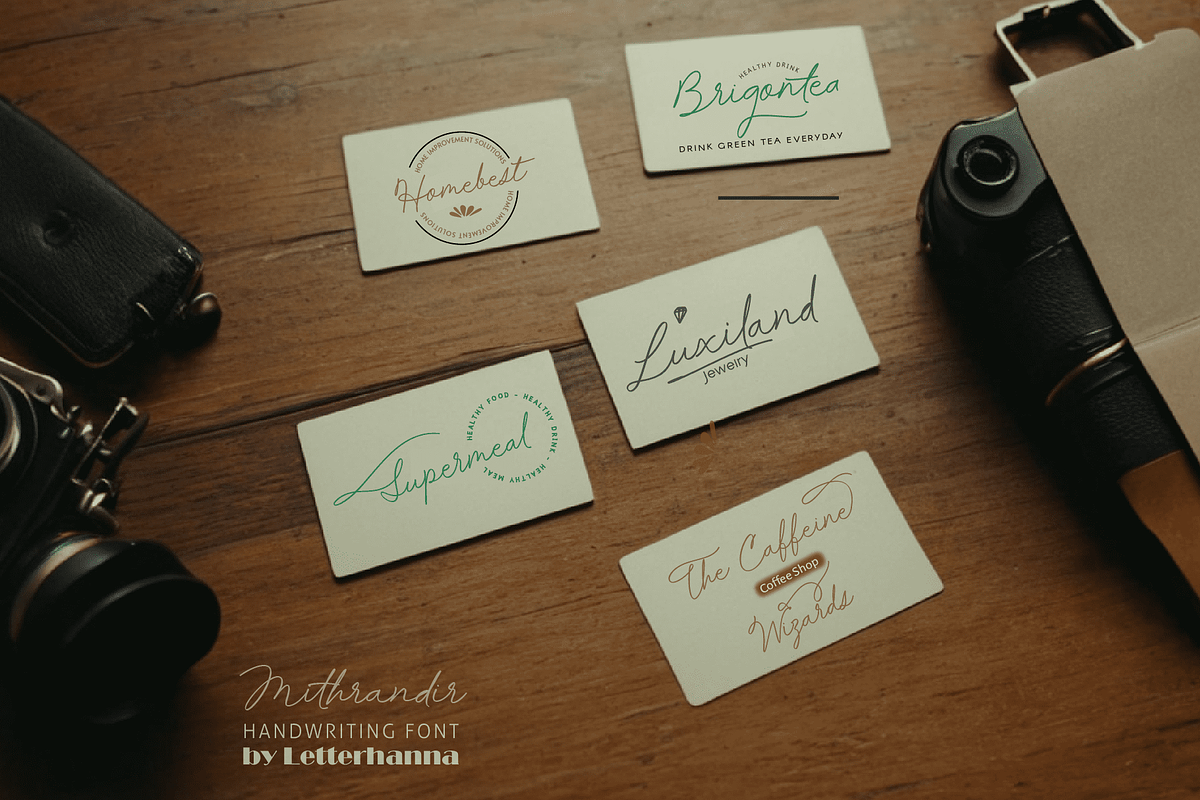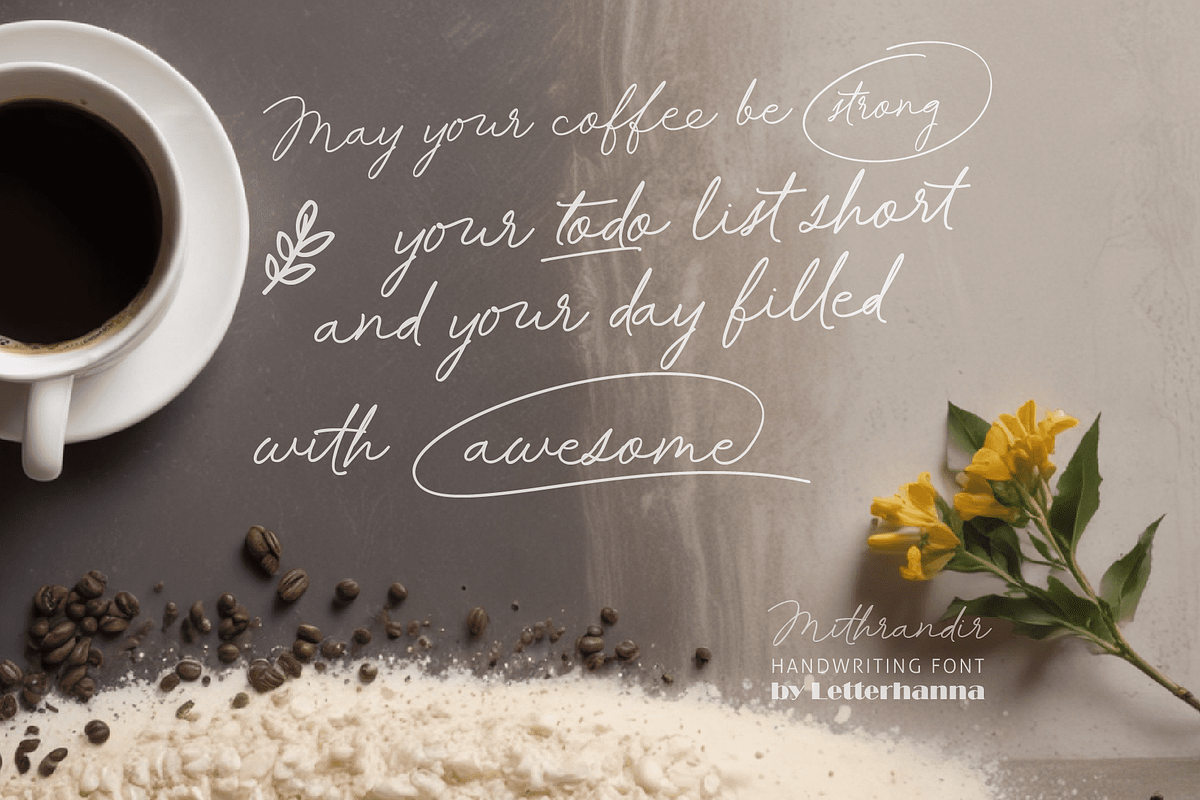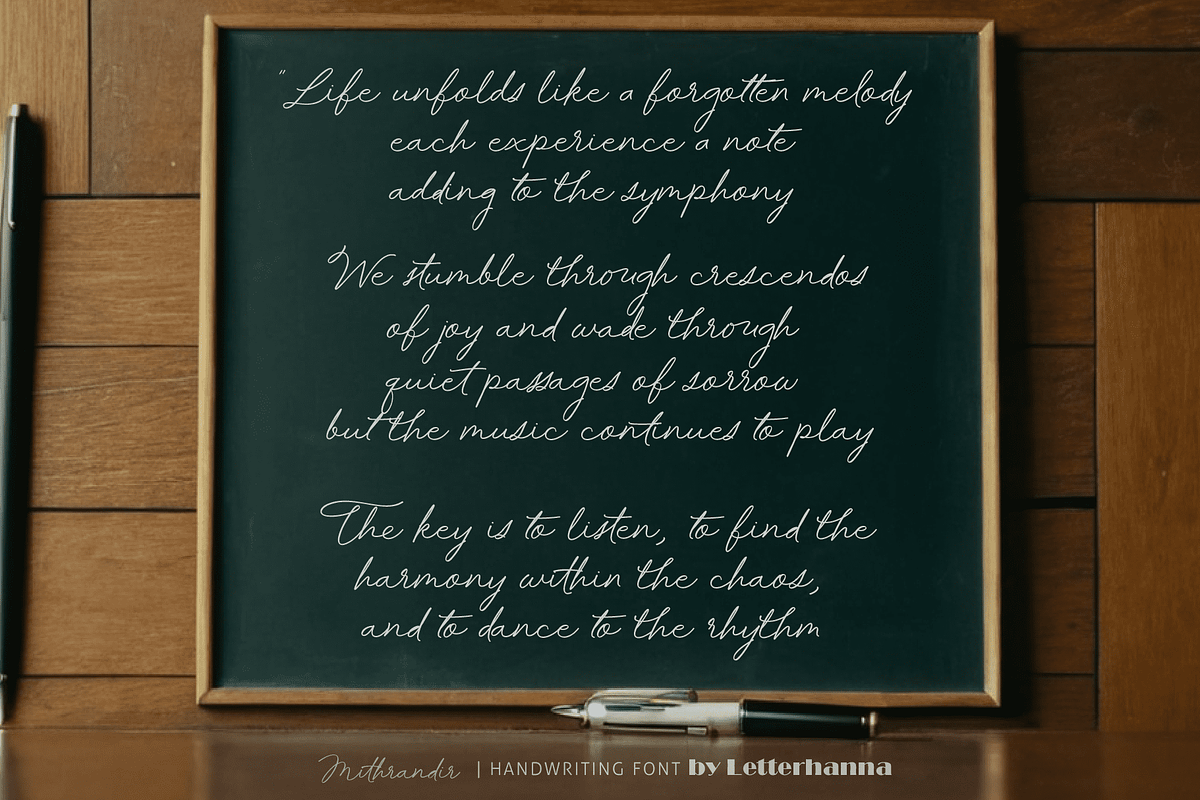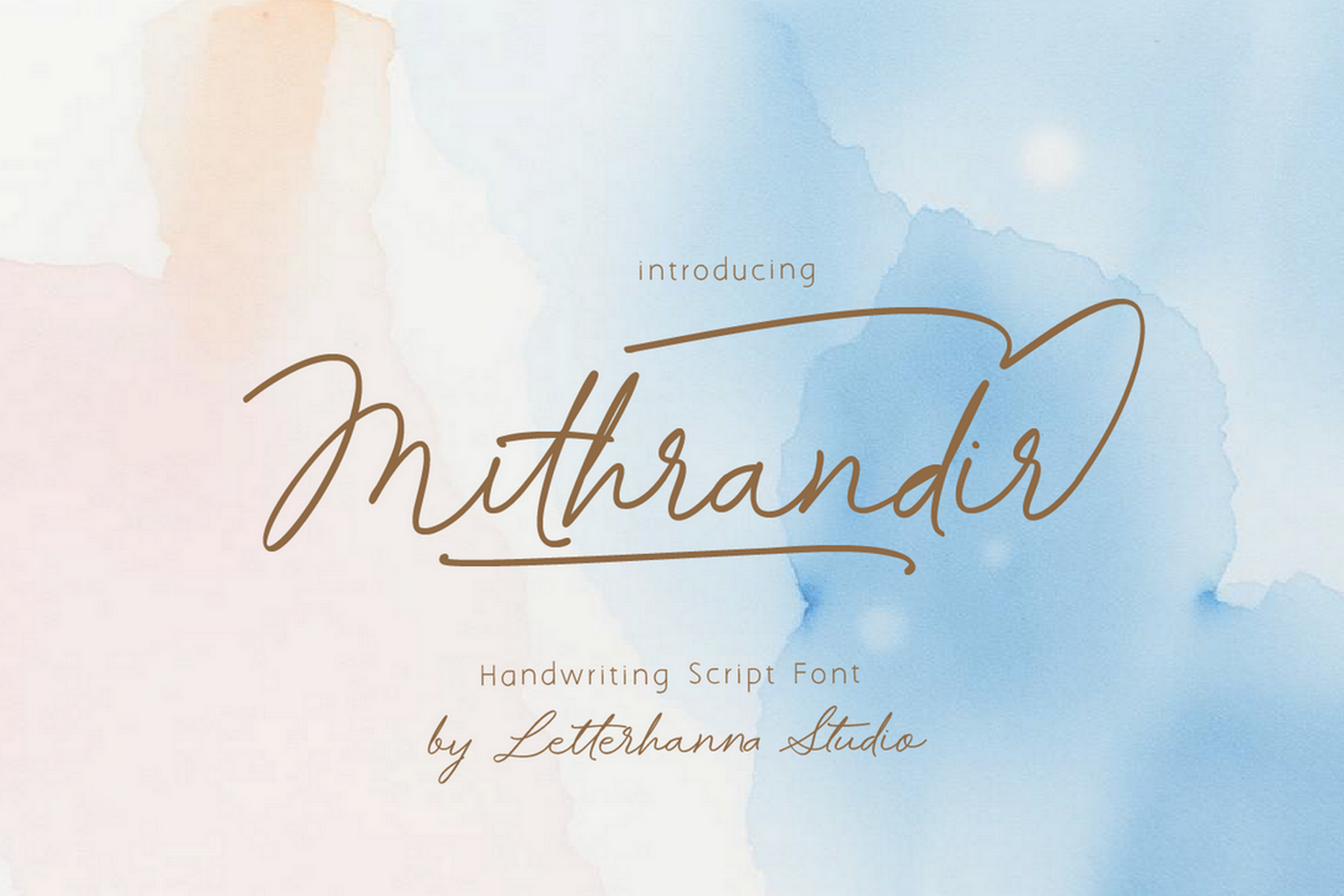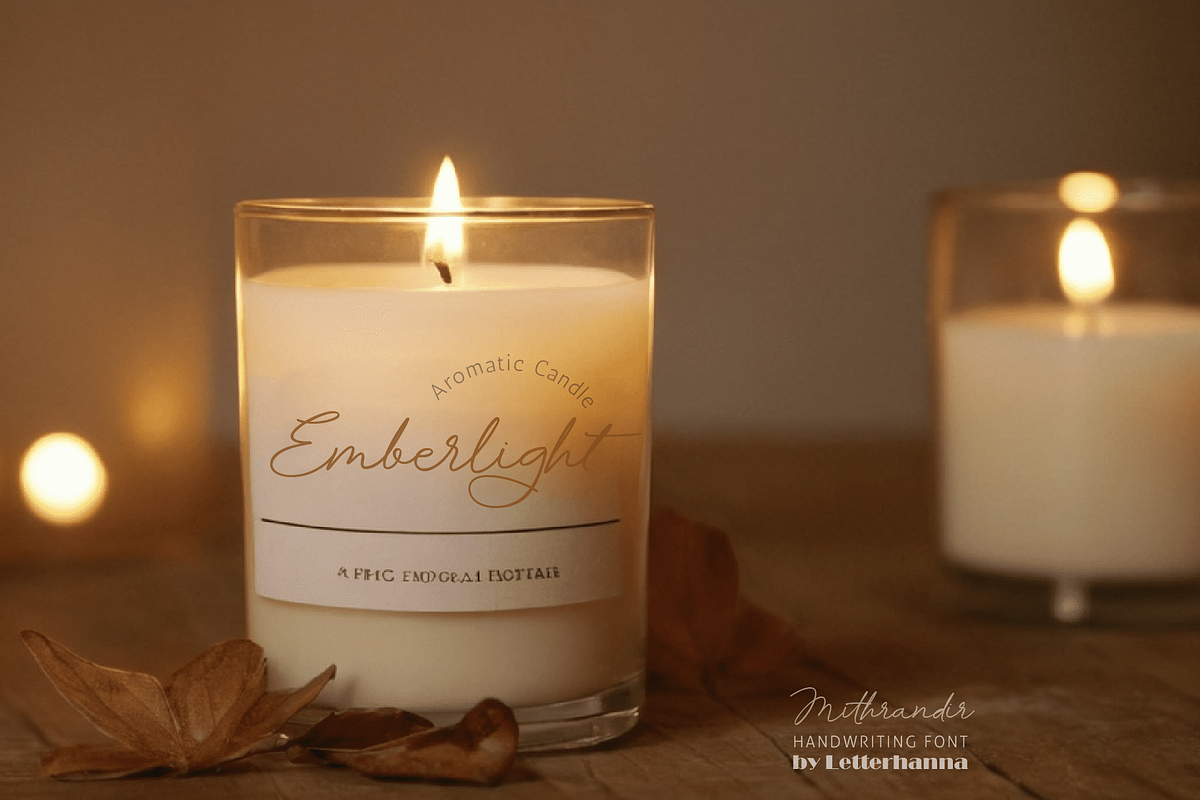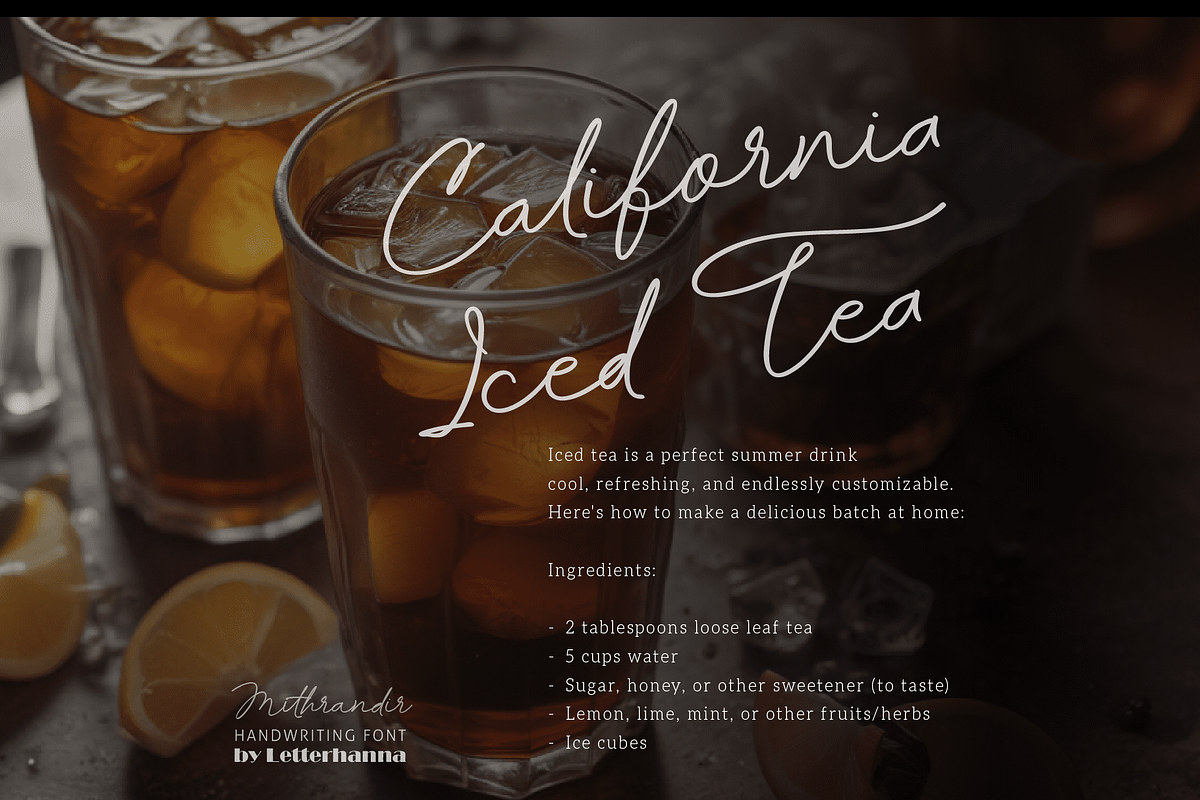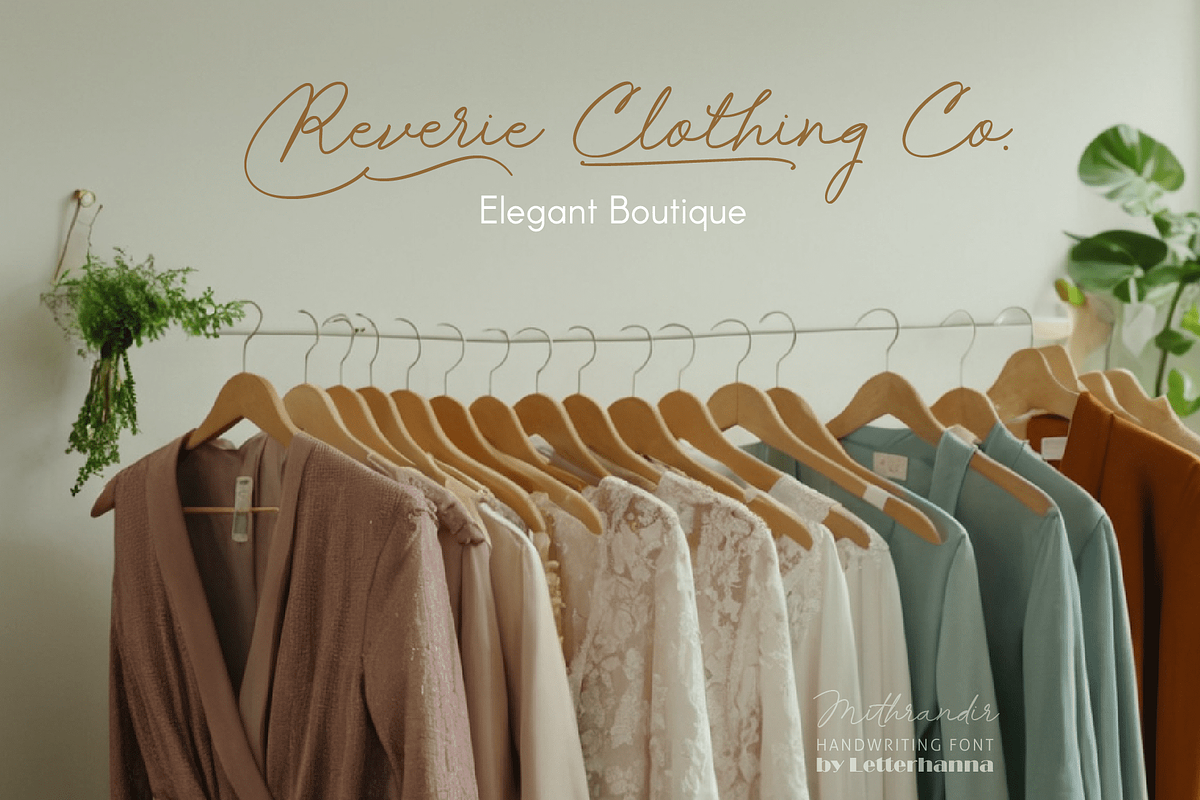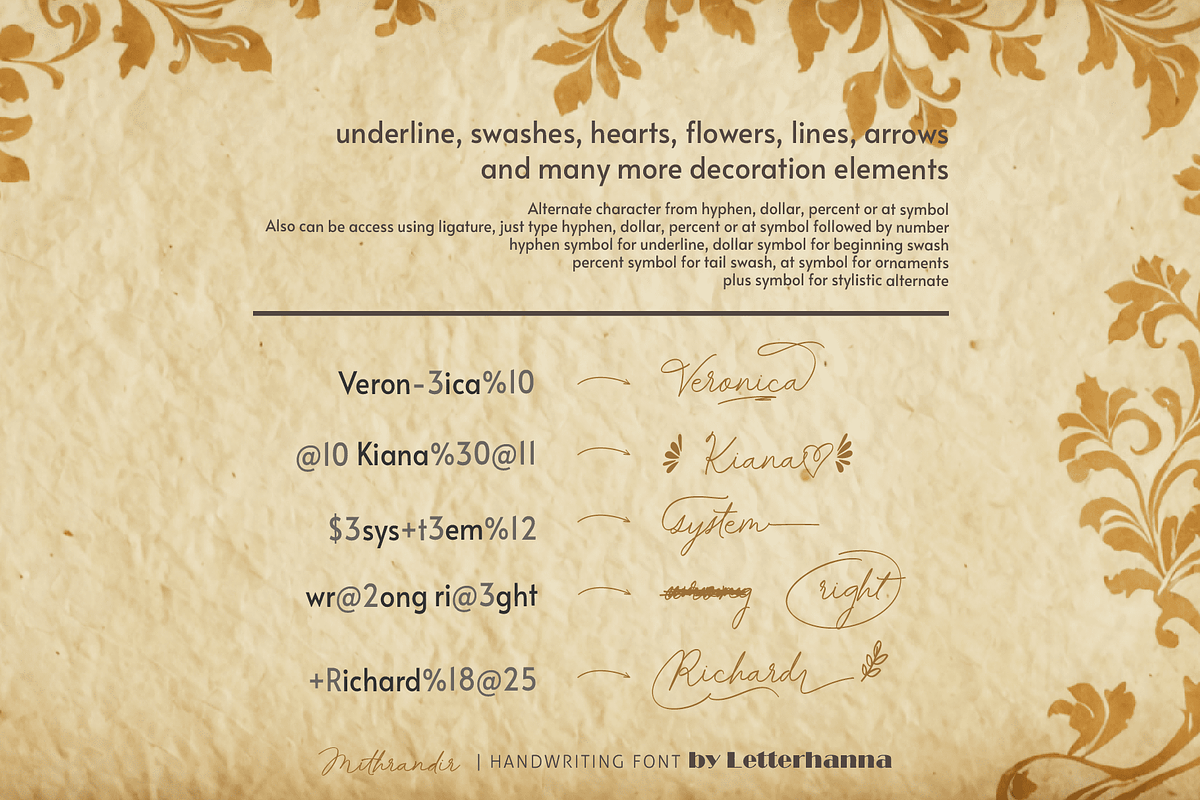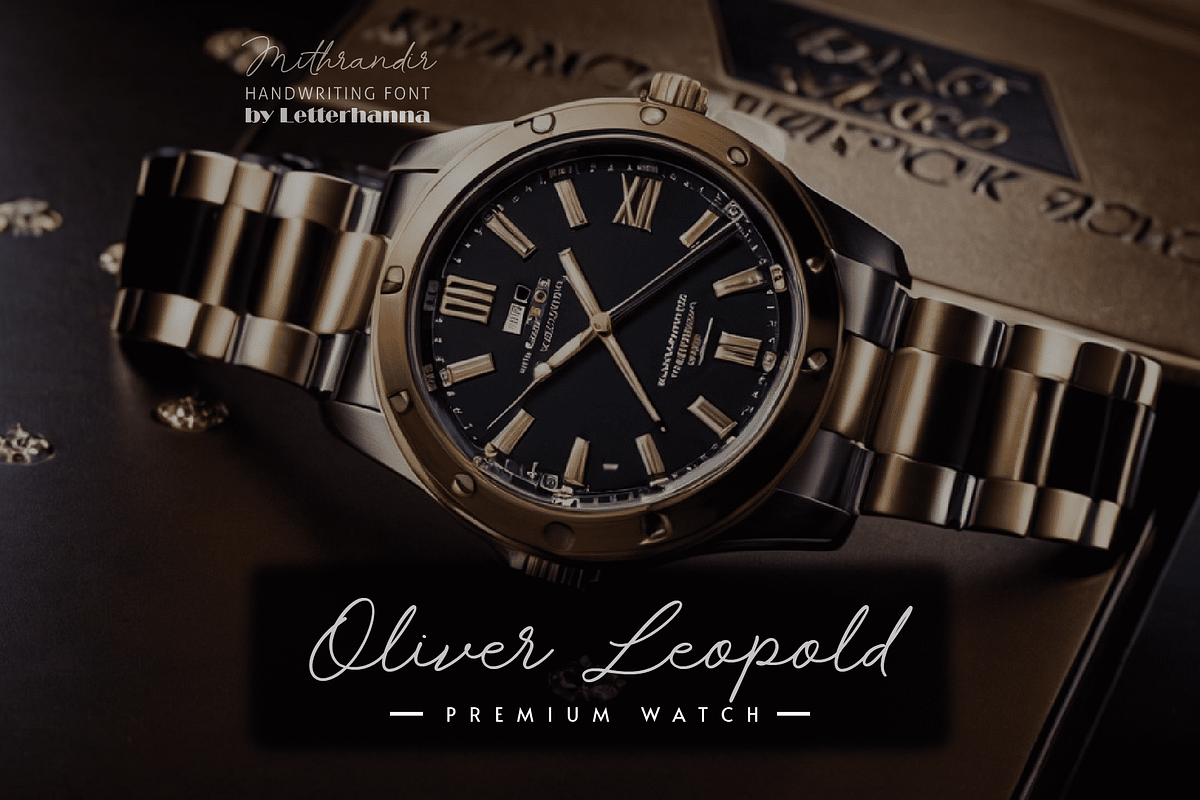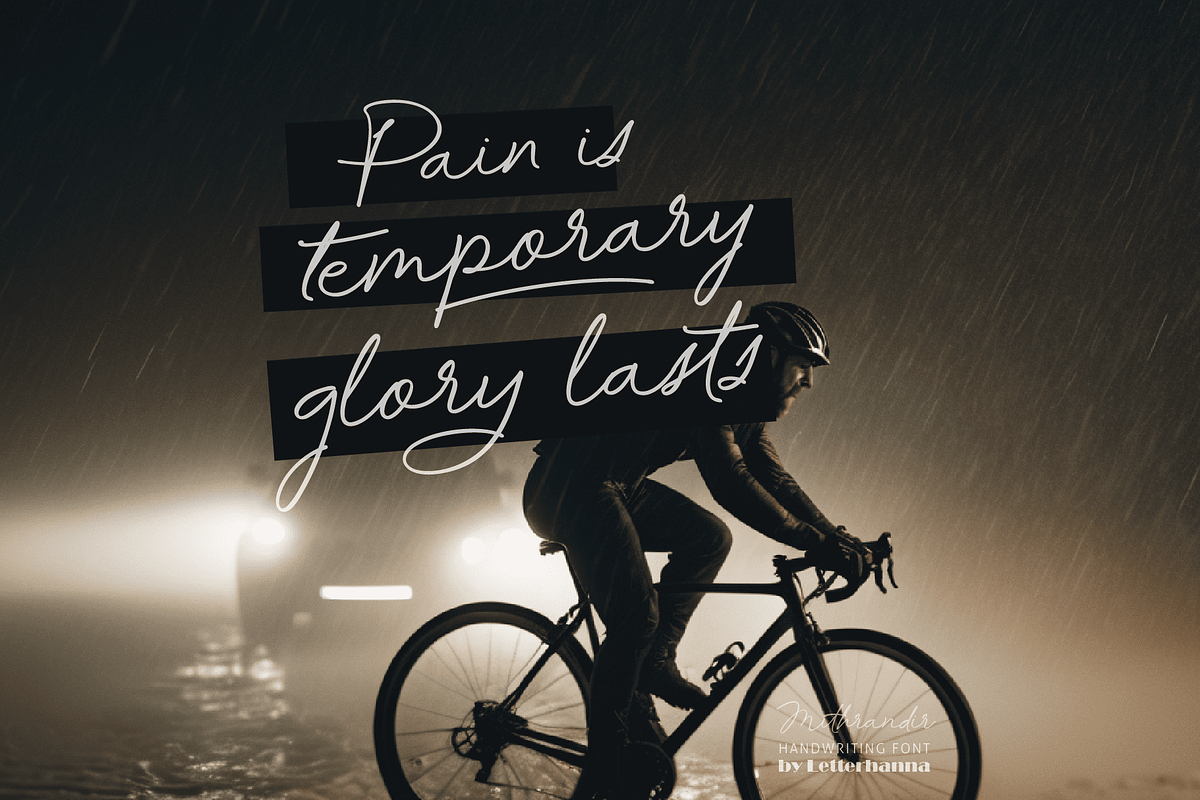
Mithrandir Font
Introducing Mithrandir, our new elegant handwriting script font.
Crafted with elegance in mind, Mithrandir boasts a timeless script style that elevates your words to new heights. This versatile font isn't just beautiful, it's packed with features to empower your creativity.
Unleash your inner artist with a wealth of stylistic alternates, swashes, and ligatures. Mithrandir allows you to effortlessly add a touch of flair and personality to your writing, ensuring your work stands out from the crowd
Easy Access to Glyphs and Swashes
Gain easy access to all alternate glyphs, swashes, ornaments, and underlines by simply using ligatures. You can try them out yourself in the font preview tool on our website, letterhanna.com.
Accessing Stylistic Alternates
Stylistic alternates can be accessed by typing a plus symbol "+" in front of the original letter. For example, type "+a" to get the stylistic alternate of the letter a.
Accessing Swashes and Ornaments
Underline Swashes: Use a hyphen symbol "-" followed by a number between 1 and 30. For example, type "-3", "-22", or "-17" to get various underline swashes.
Head/Beginning Swashes: Use a dollar sign "$" followed by a number between 1 and 9. For example, type "$2" or "$8" to get different head/beginning swashes.
Tail/Ending Swashes: Use a percent sign "%" followed by a number between 1 and 30. For example, type "%3" or "%15" to get various tail/ending swashes.
Ornaments: Use an "at" symbol "@" followed by a number between 1 and 26. For example, type "@4" or "@13" to get different ornaments.
PUA Encoding for Ease of Use, which means you can access all the glyphs and swashes with ease!
Uppercase and lowercase letters
Numbers and punctuation marks
Beginning and ending swashes
Underline swashes
Stylistic alternates
Ornaments
Easy access to swashes using ligatures